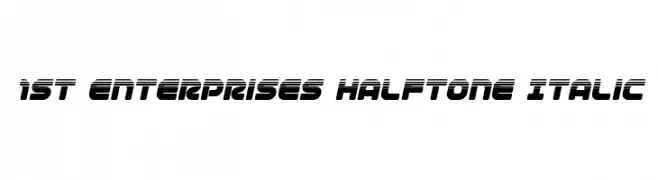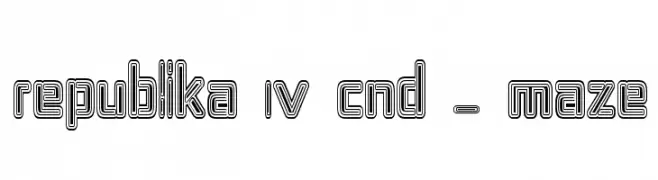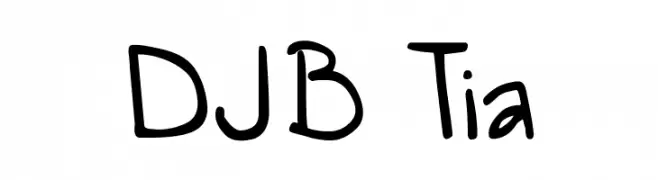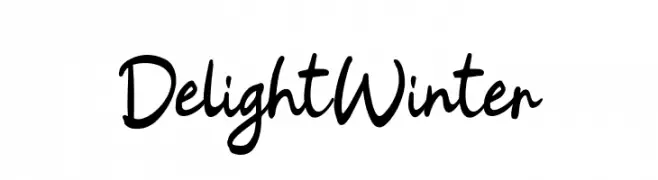
A bold, italicized font with a futuristic halftone effect and dynamic appearance.
A bold, dynamic font with double-lined strokes and a sense of movement.
A bold, geometric font with a maze-like, three-dimensional design.
A playful, informal handwritten font with smooth, rounded strokes.
A lively handwritten font with fluid strokes and a playful style.